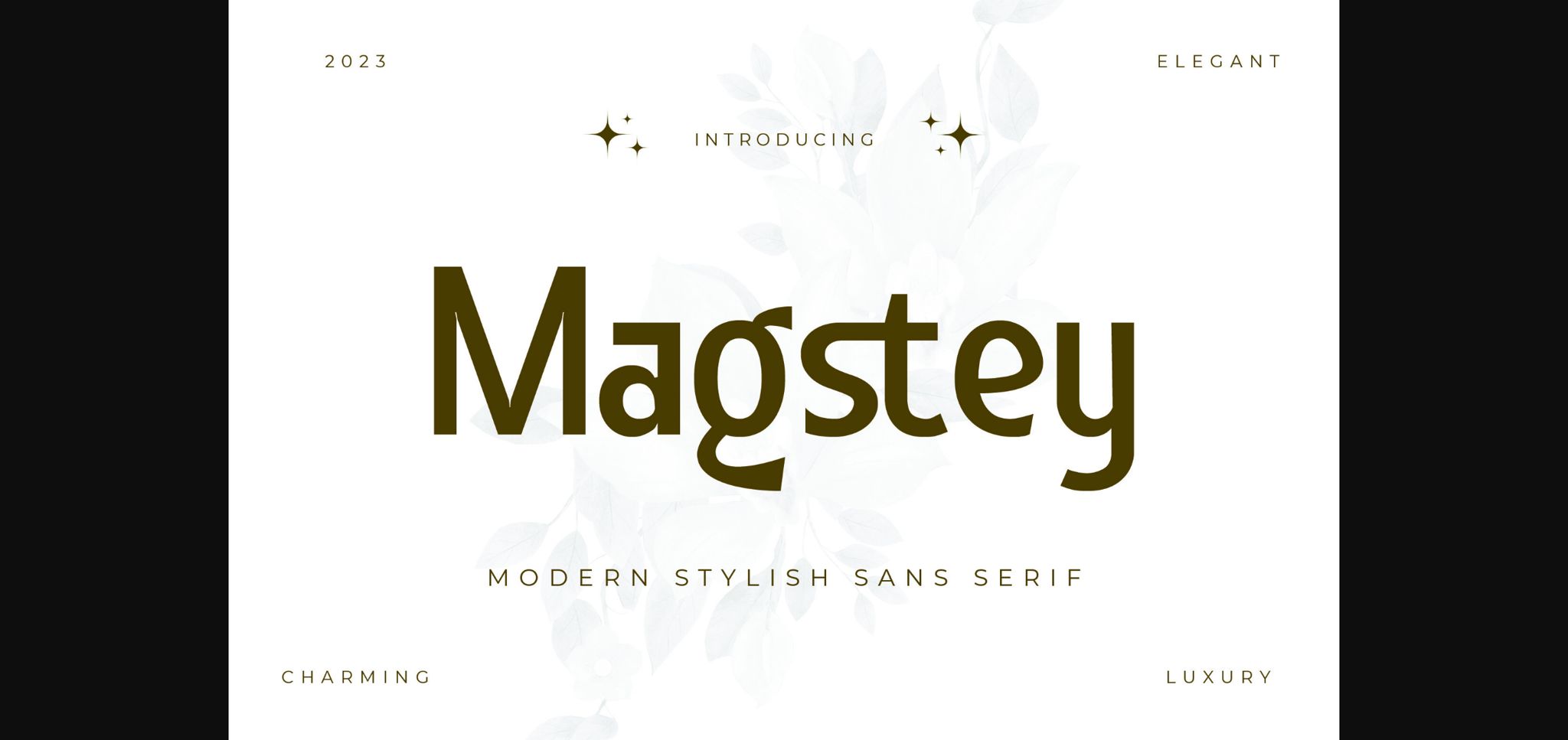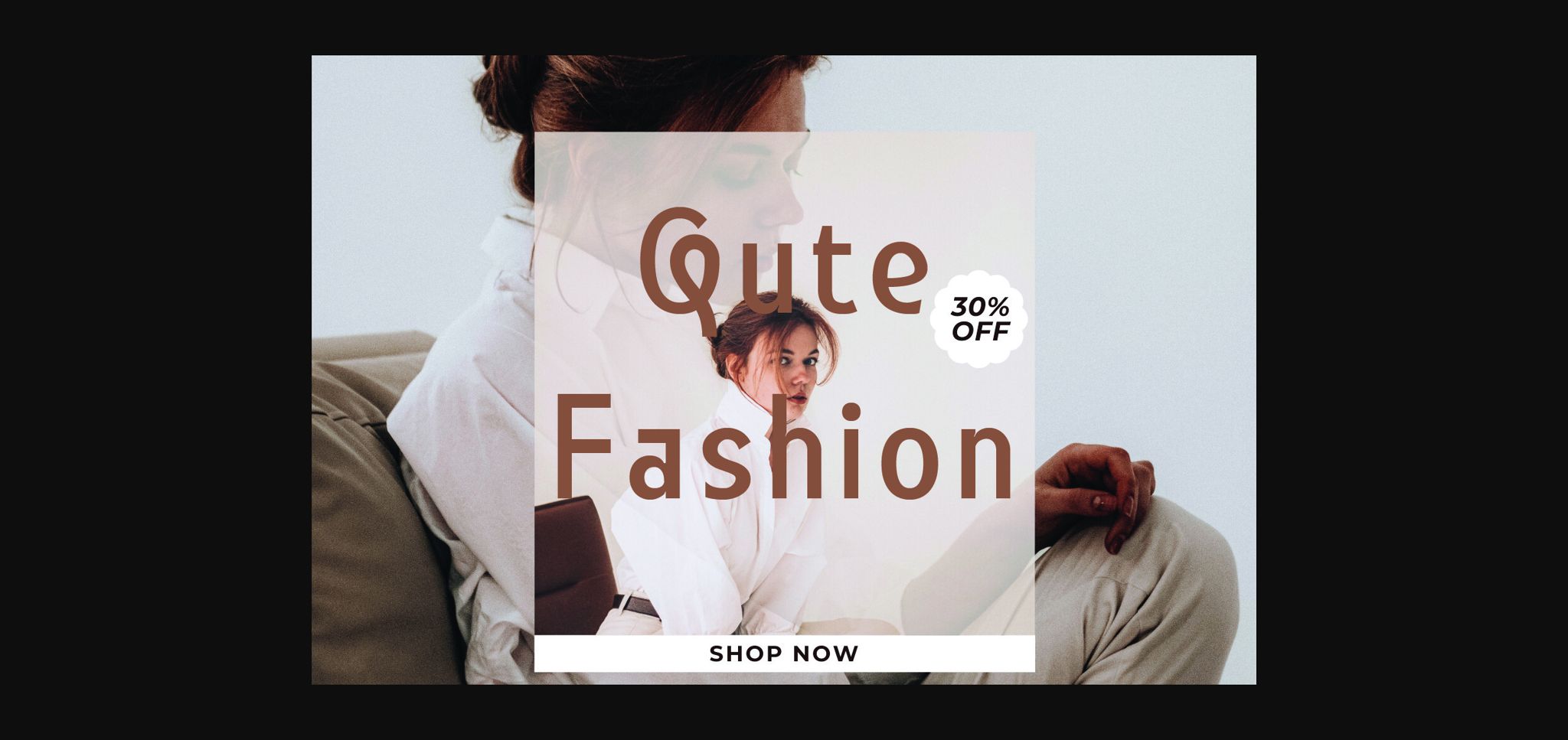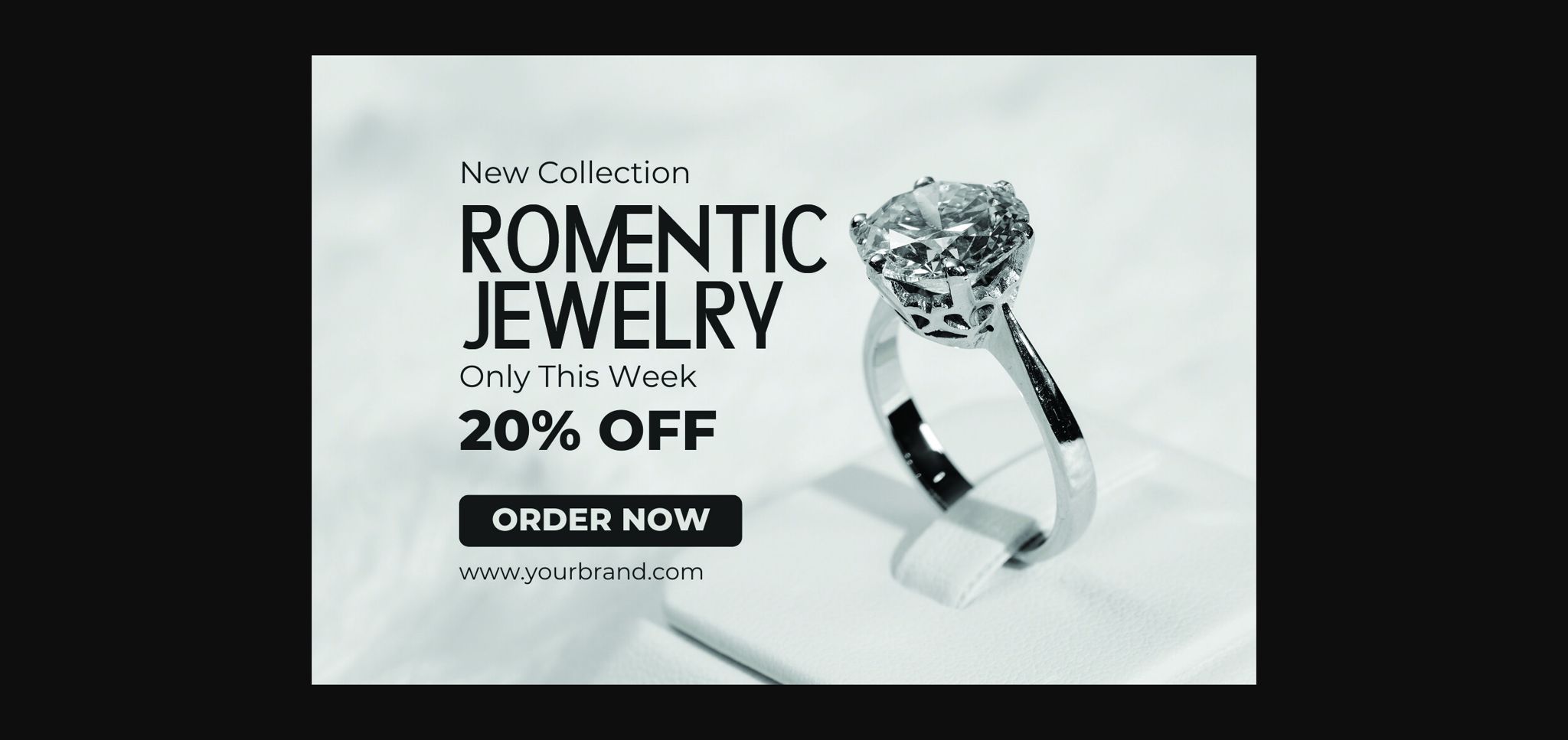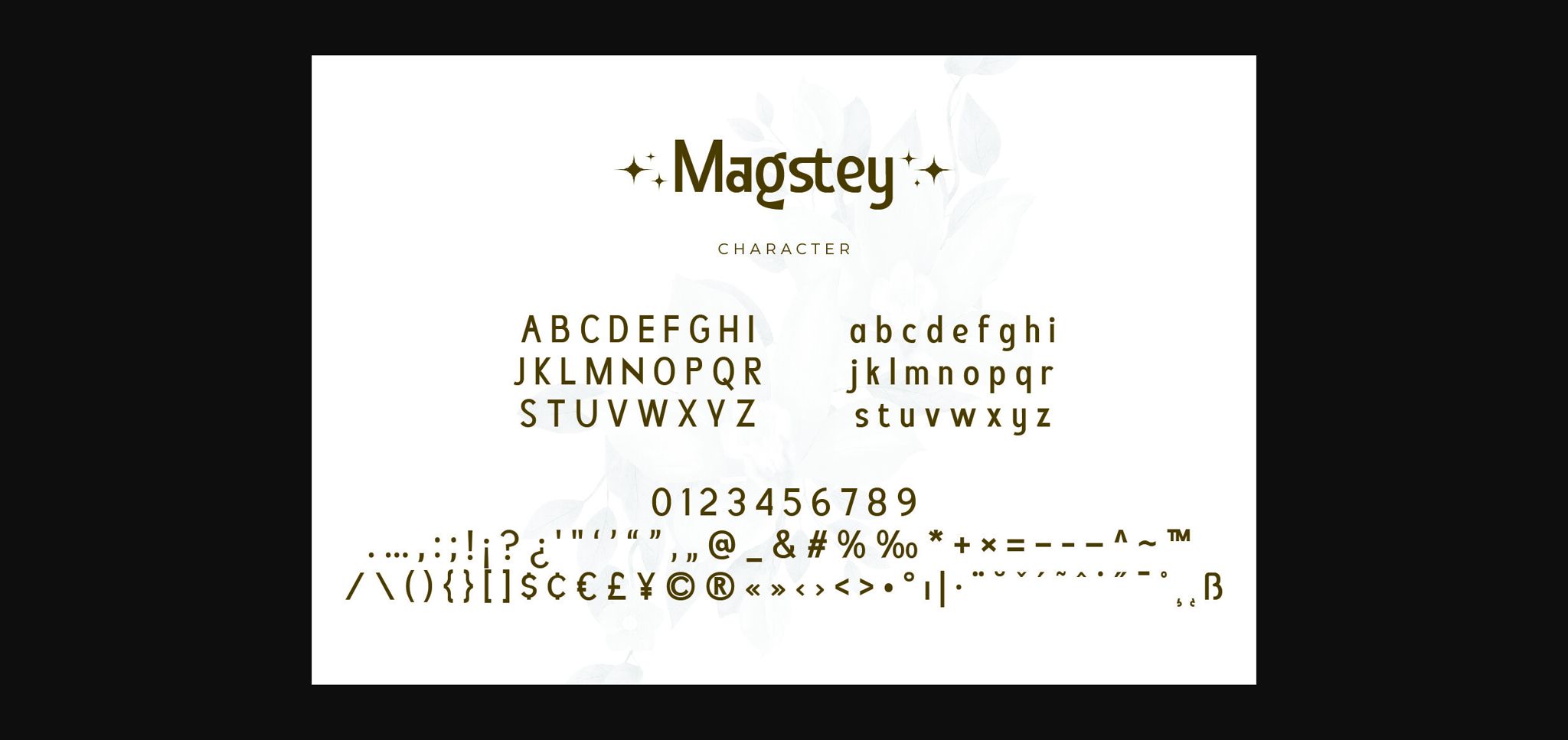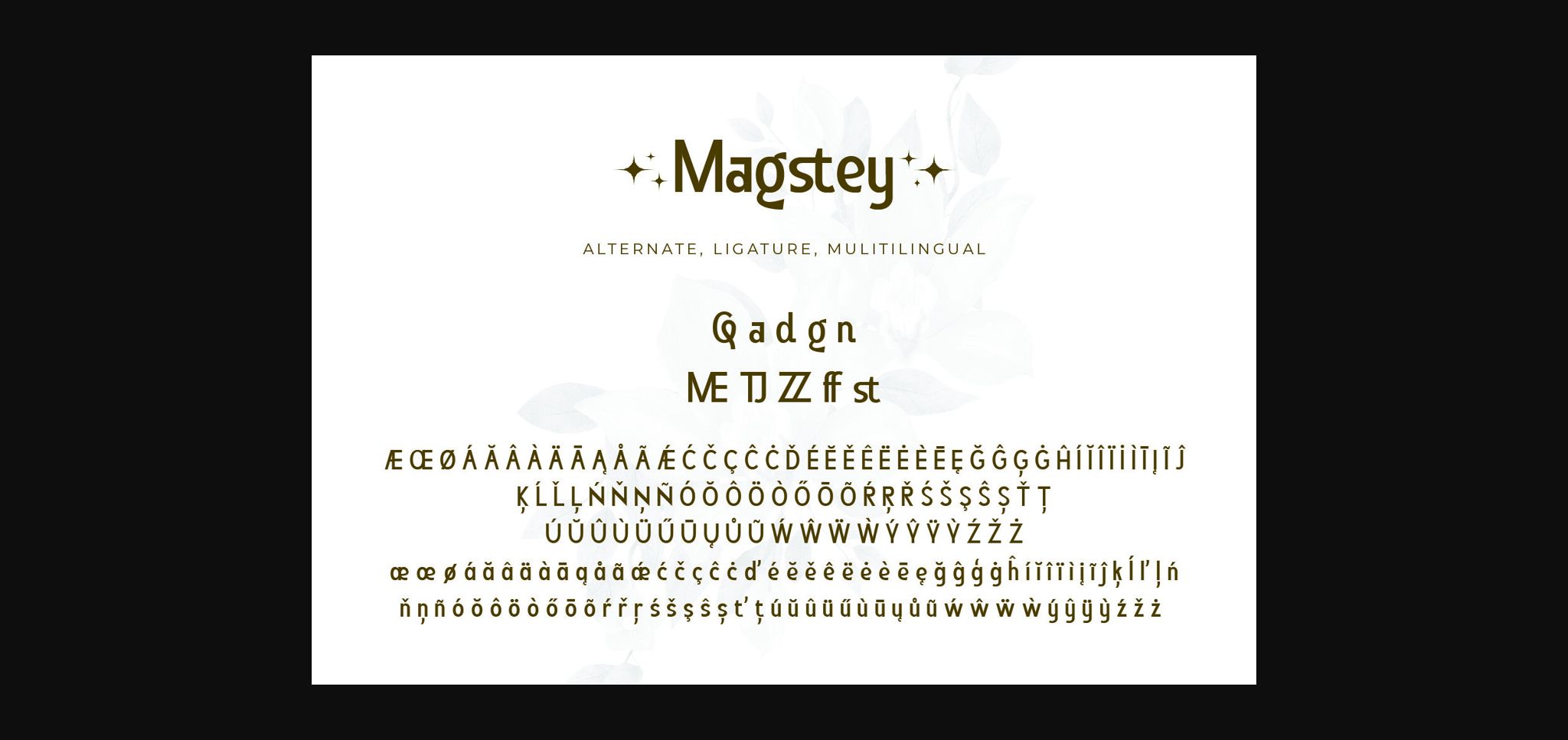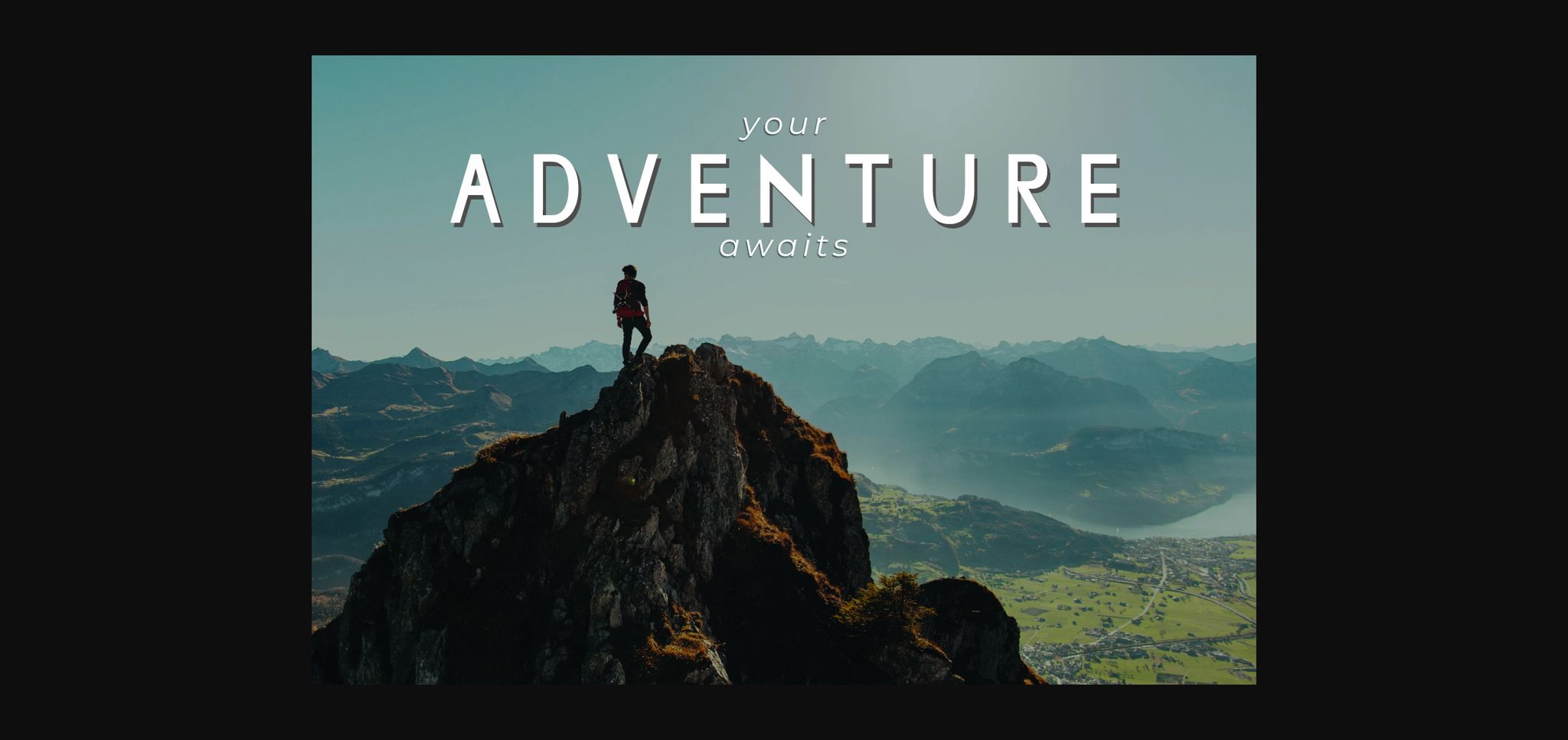
Magstey Font
About Magstey Font
**Magstey – Modern Stylish Sans Serif** with a calligraphy style, So beautiful on invitations like greeting cards, branding materials, business cards, quotes, posters, and more!